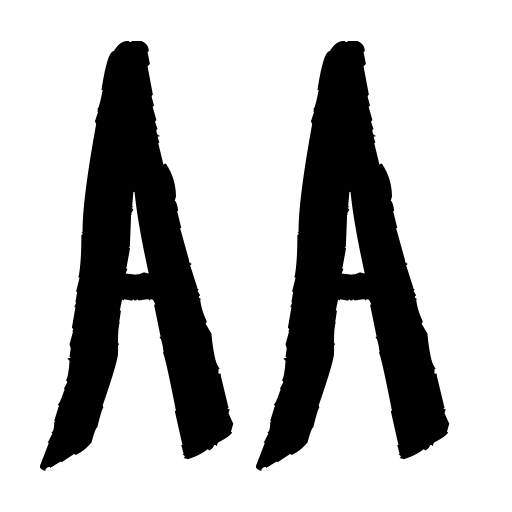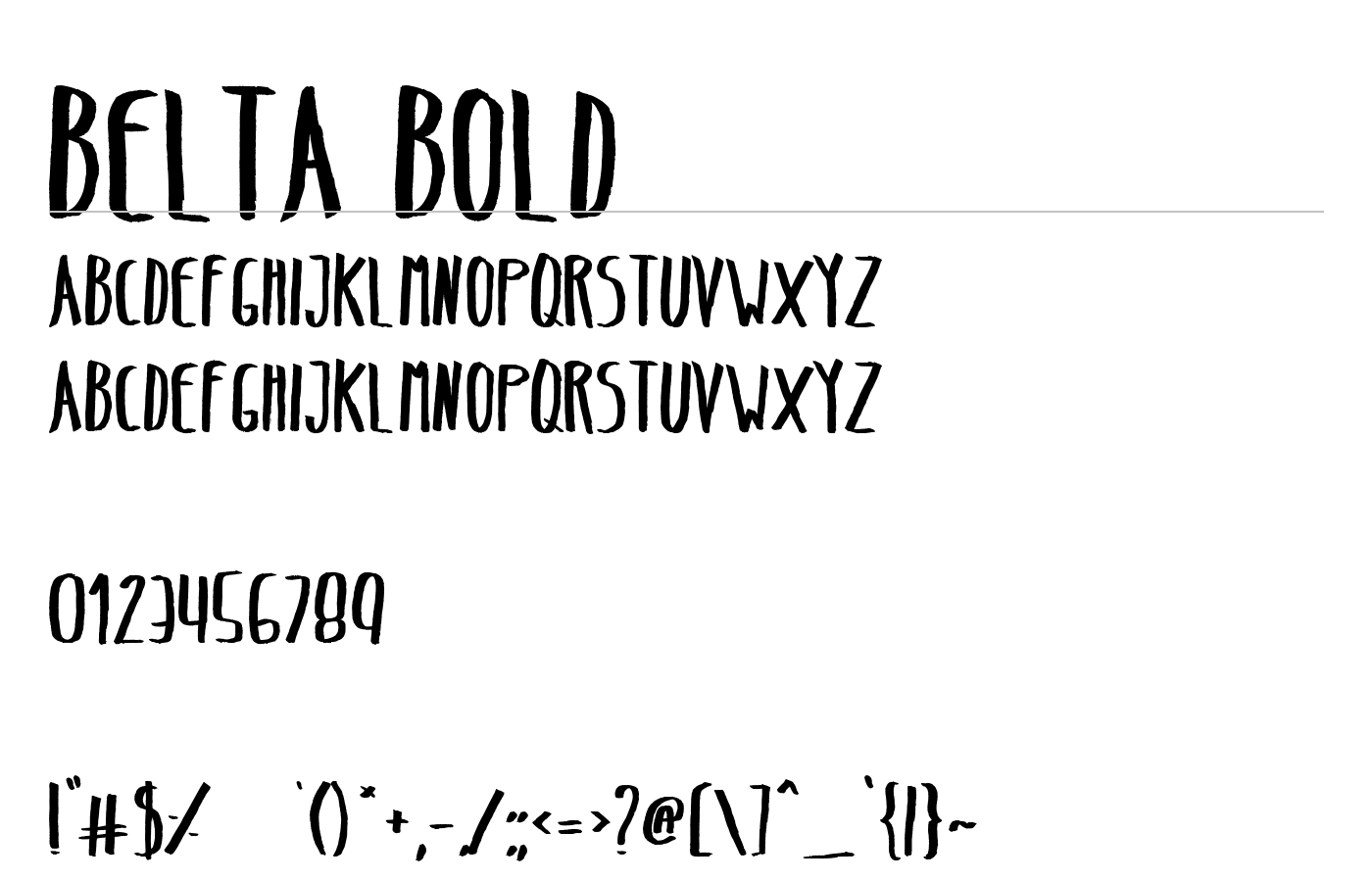
Belta Regular is a bold, condensed sans serif font with a hand-drawn, brushstroke style that gives it a playful and organic feel. Its tall, narrow letterforms with irregular edges add a casual, artistic touch that works well for creative branding, posters, and headlines needing a distinctive, energetic vibe. This font is ideal for projects seeking a unique, approachable look with personality.
Belta Regular Font
About Belta Regular Font
| Designer | Julia Martinez Diana, Antipixel |